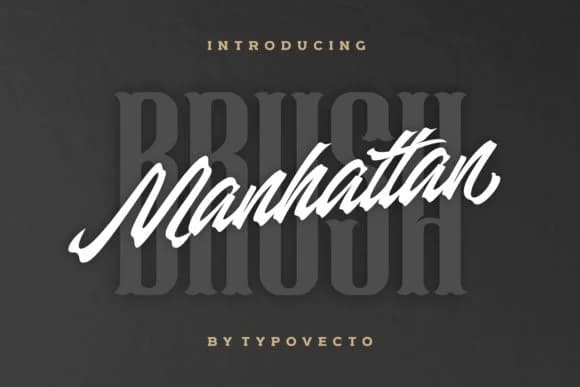
Manhattan Brush by nocturnal_workspace is a contemporary brush script with energetic movement and confident letterforms that leap off the page. The font captures that hand-drawn quality many designers chase for brand identity work, particularly when authenticity matters more than polish. It's strong enough to command attention on social media graphics, event posters, and packaging design without feeling like a template that gets reused everywhere online.
Where this script really shines is in beauty and wellness branding, greeting card suites, and cosmetics product labeling where that personal touch converts browsers into customers. Boutique packaging labels benefit tremendously from its fluid strokes and distinctive brushwork character. The letterforms strike a balance between control and expressiveness, reading clean and crisp even at smaller sizes on Etsy product listings, shop headers, and social media thumbnails. Single-weight construction keeps file sizes reasonable for web-based projects and ensures consistent rendering across different platforms and devices without any performance hiccups.
The flowing characters work equally well for hand-lettered logo concepts and motivational poster designs that need genuine personality. You'll appreciate how the brush strokes feel authentic without needing professional hand-lettering expertise yourself. The result reads as expressive and genuine, giving brands a tool for visual communication that doesn't feel formulaic. Pick up Manhattan Brush on Creative Fabrica to add this versatile script to your design toolkit.
Manhattan Brush Font is a script font that shines as a display or heading face. Pair it with a clean sans-serif or serif font for body text β the contrast creates a clear hierarchy while the two styles stay balanced and easy to read.
Manhattan Brush Font